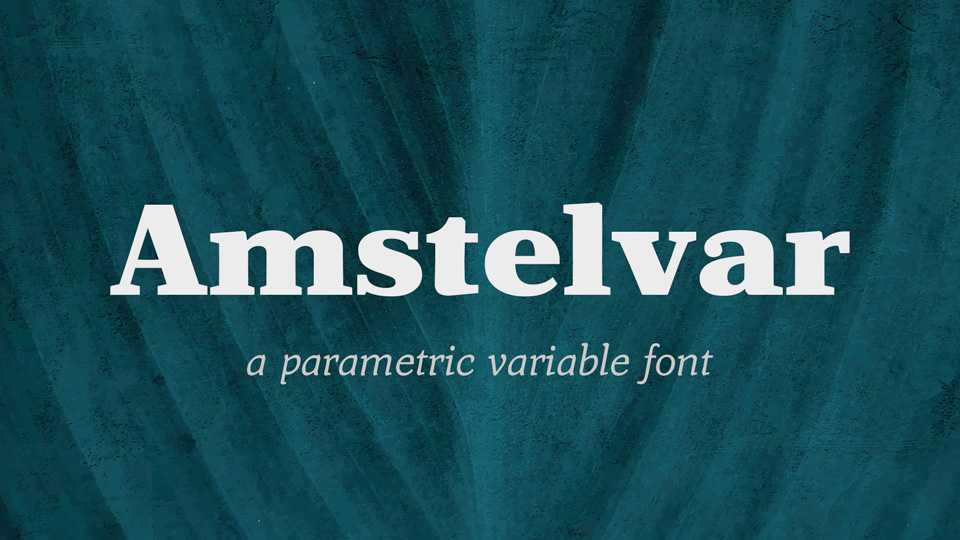
Download Amstelvar typeface, a parametric variable font, inspired by the typeface designs used in The Netherlands and Belgium from the sixteenth century to the development of Times Roman in the 1930s.
Designer: David Berlow